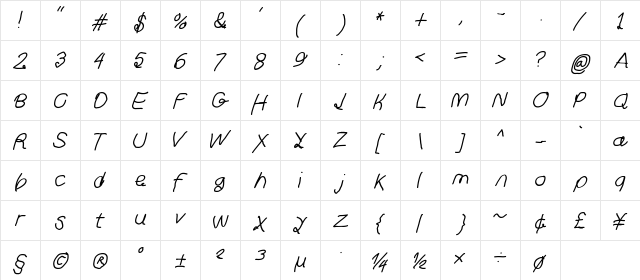
Curly Kue SBdIta
Design Context for Curly Kue Typeface
Curly Kue is a composed and adaptable typeface that performs quietly and consistently across a wide range of design contexts.